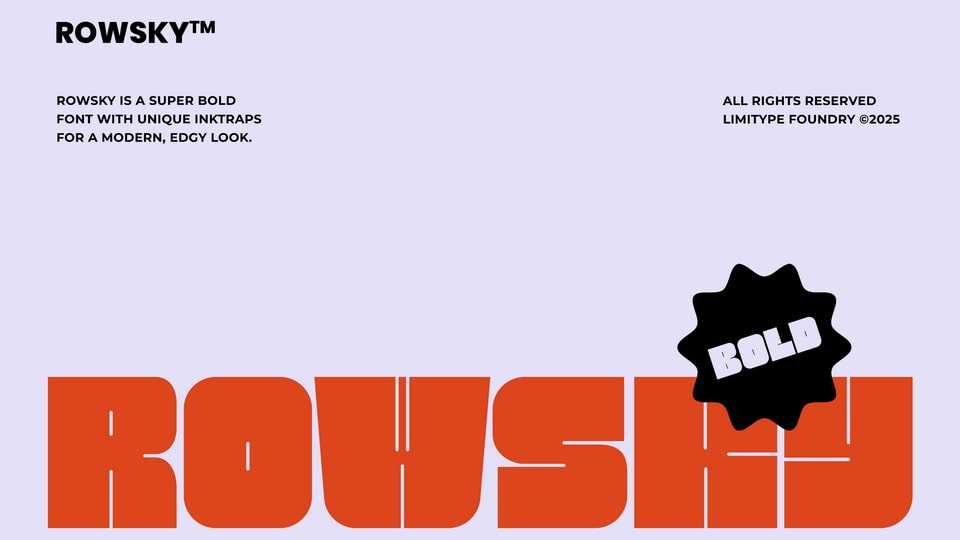
Download Rowsky font, a super bold typeface with sturdy, blocky shapes full of character. Its unique style details bring a modern, edgy feel that sets it apart from typical bold fonts.